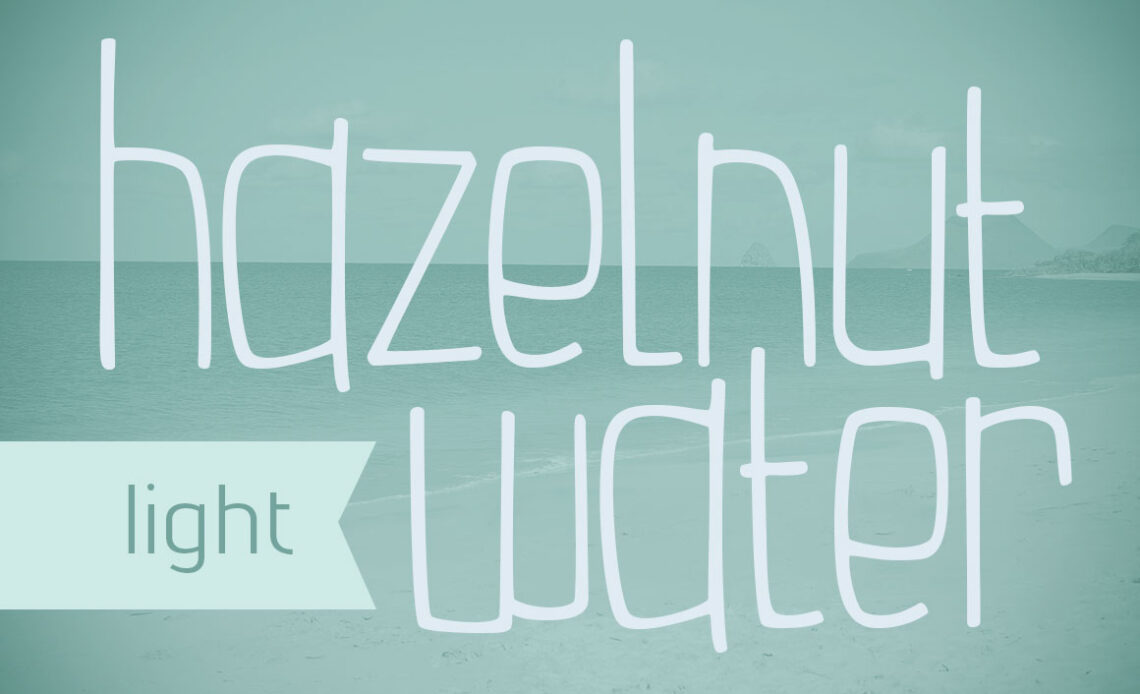
Hazelnut Water Light Font
Introducing Hazelnut Water Light Font, a playful comic font that will add a touch of fun and whimsy to your designs. Perfect for headlines, text, logos, badges, and more, this font is sure to make your work stand out from the crowd.
Hazelnut Water Light Font is part of the display font family, which means it is designed to be used in large sizes for maximum impact. This font is perfect for creating eye-catching headlines, logos, and other design elements that need to grab attention.
With its playful and whimsical style, Hazelnut Water Light Font is perfect for adding a touch of fun to your work. This font is perfect for creating designs for children's products, toys, games, and other fun-themed projects.
Hazelnut Water Light Font is also perfect for creating logos and branding for businesses that want to convey a sense of fun and whimsy. This font is perfect for creating logos for toy stores, game companies, and other businesses that want to appeal to a younger audience.
* It's a playful comic font that is perfect for adding a touch of fun and whimsy to your designs.
* It's part of the display font family, which means it is designed to be used in large sizes for maximum impact.
* It's perfect for creating eye-catching headlines, logos, and other design elements that need to grab attention.
* It's perfect for creating designs for children's products, toys, games, and other fun-themed projects.
* It's perfect for creating logos and branding for businesses that want to convey a sense of fun and whimsy.